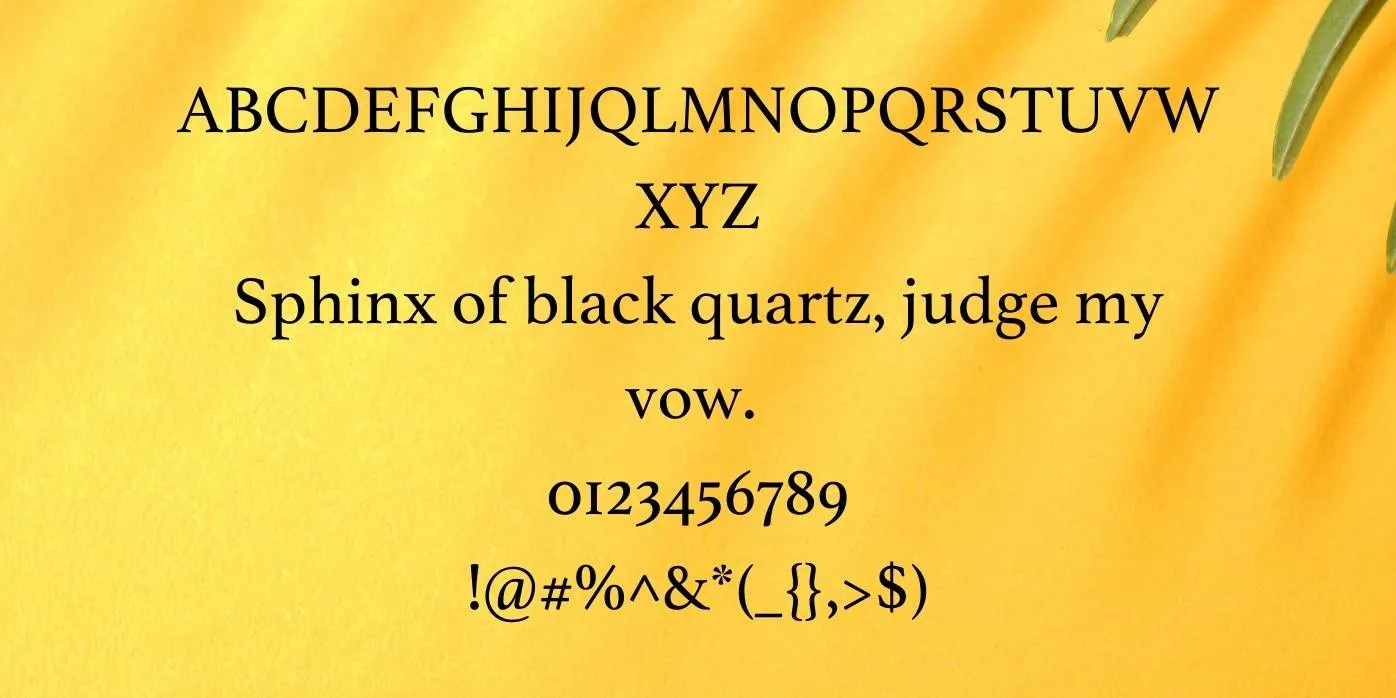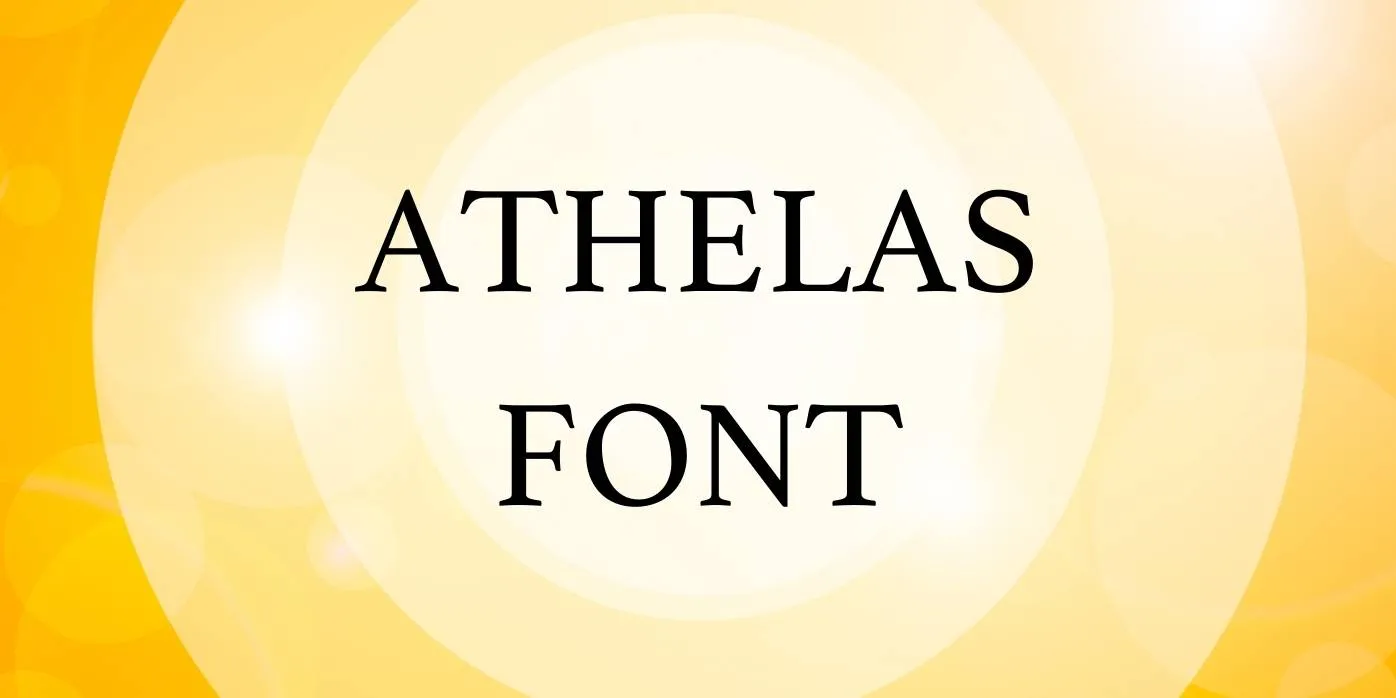
Athelas Font
Representing you an adorable typeface with a great visual style that is Athelas font. It belongs to a Serif font family and the designer of this typeface are Veronika Burian and Jose Scaglione and it was produced in 2008 with the help of TypeTogether. This Font is a perfect and superb typeface for immense typography works that can provide marvelous performance with the combination of Droid Serif Font and it is very common for your website content purposes. Athelas Font has Truetype Features and has beautiful weight includes Regular, Bold, Italic, and Bold italic as well.
The font consists of Uppercase and Lowercase letters, Numbers and Numerals, known punctuation, glyphs, and symbols, etc.